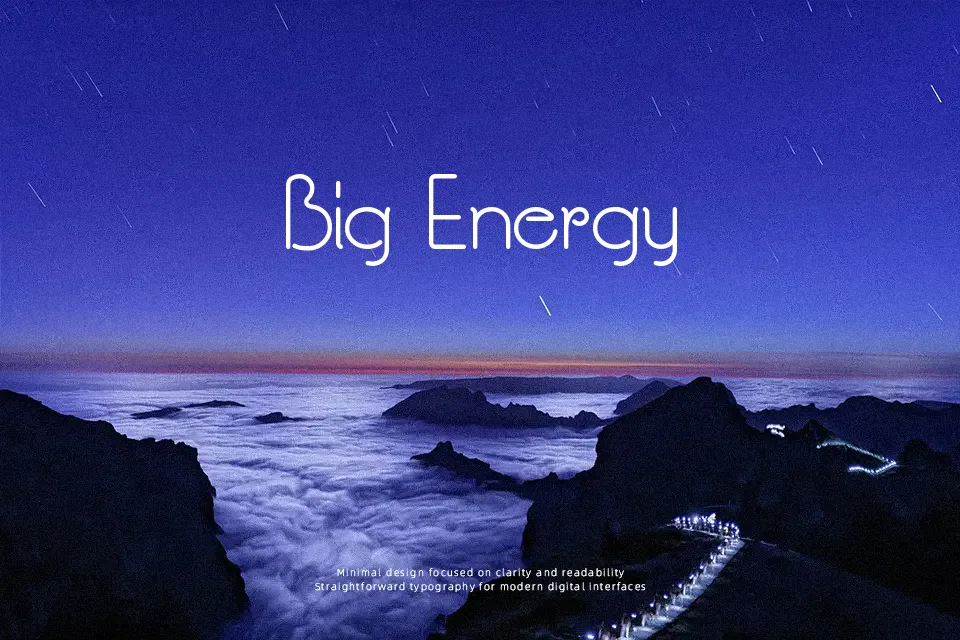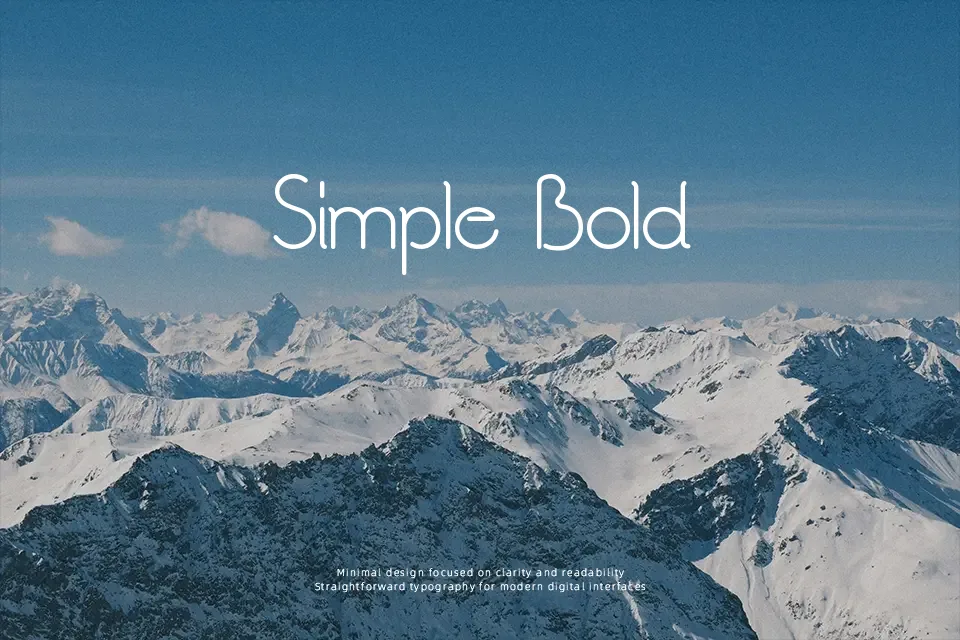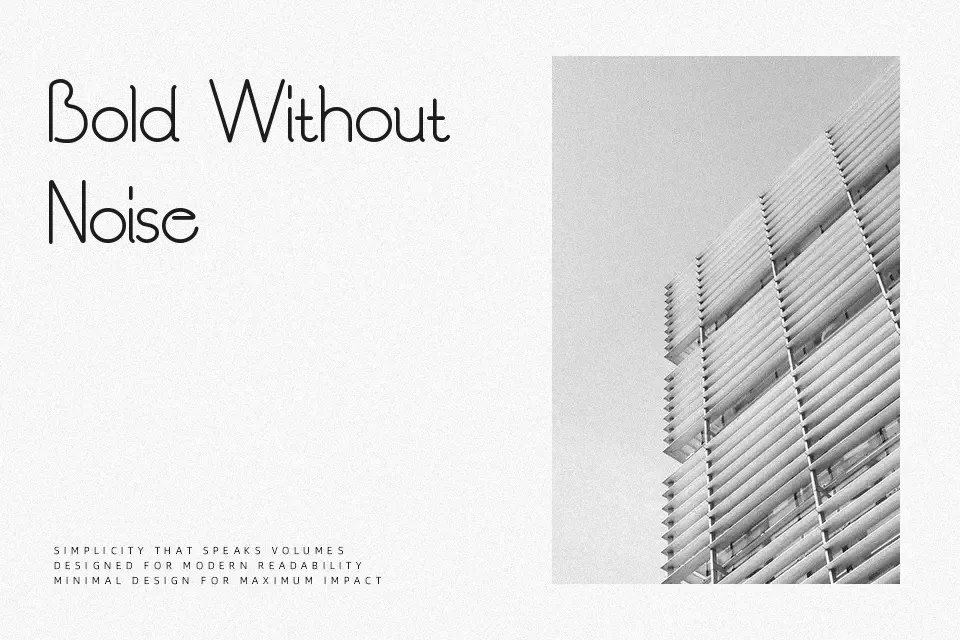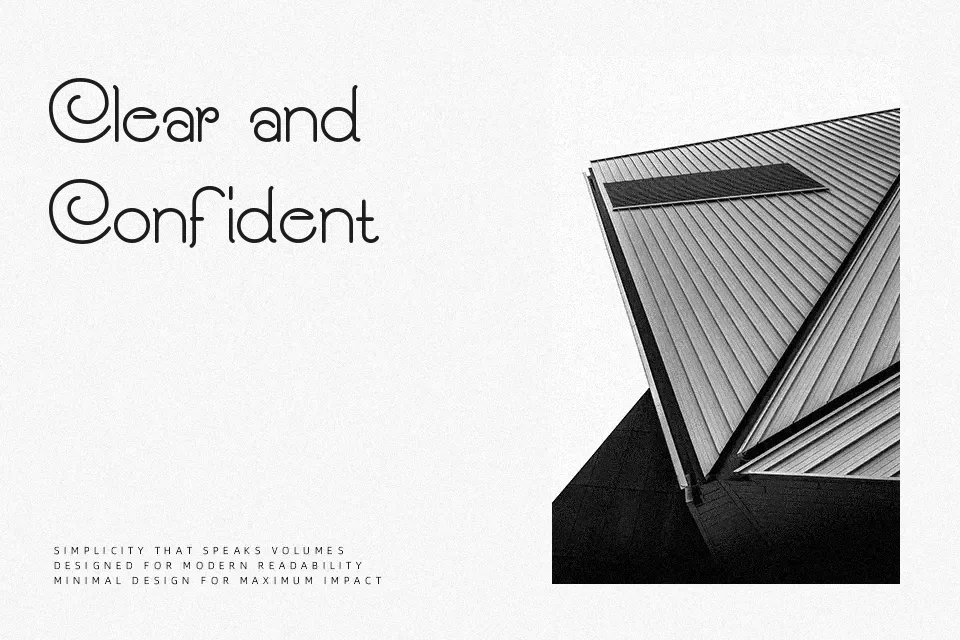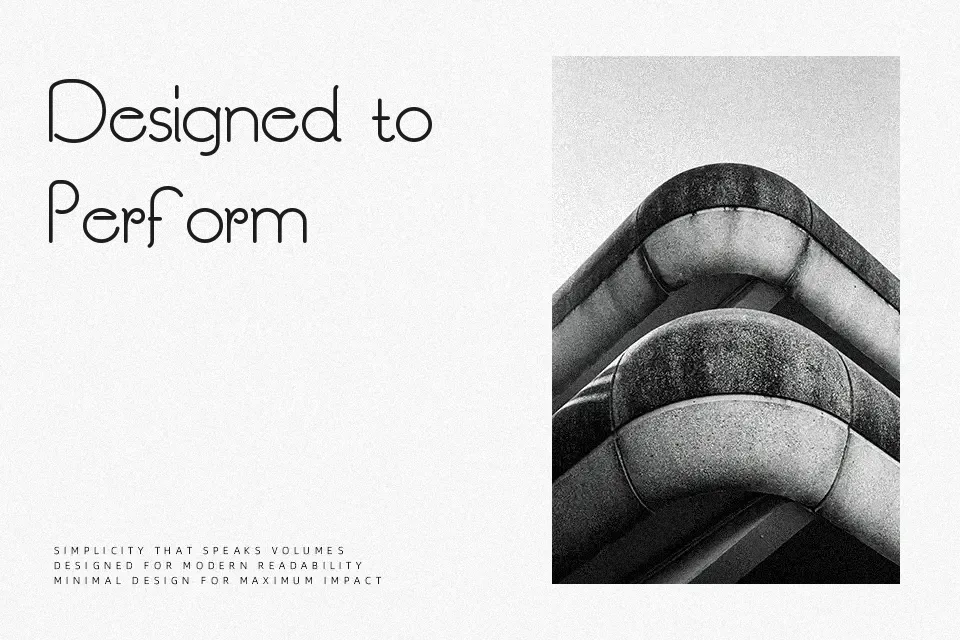
SouciSans Font
SouciSans Font functions effectively as an expressive display typeface featuring clean sans-serif stems paired with whimsical internal loops and geometric curves. The stroke weight remains consistent throughout uppercase and lowercase glyphs, establishing an even rhythm across wide character proportions. Generous spacing between letters preserves definition when rendered at prominent headline scales on signage, book covers, and retro-themed branding materials. However, the decorative internal loops and stylized intersections reduce legibility when set in smaller body copy or dense multi-line paragraphs. The design delivers a charming vintage presence that works best when given ample layout space to breathe.
Best For: vintage event posters, craft beverage packaging, retail storefront signage, book cover titles
Not Ideal For: continuous editorial body text, mobile application user interfaces, compact legal disclaimers, data spreadsheets